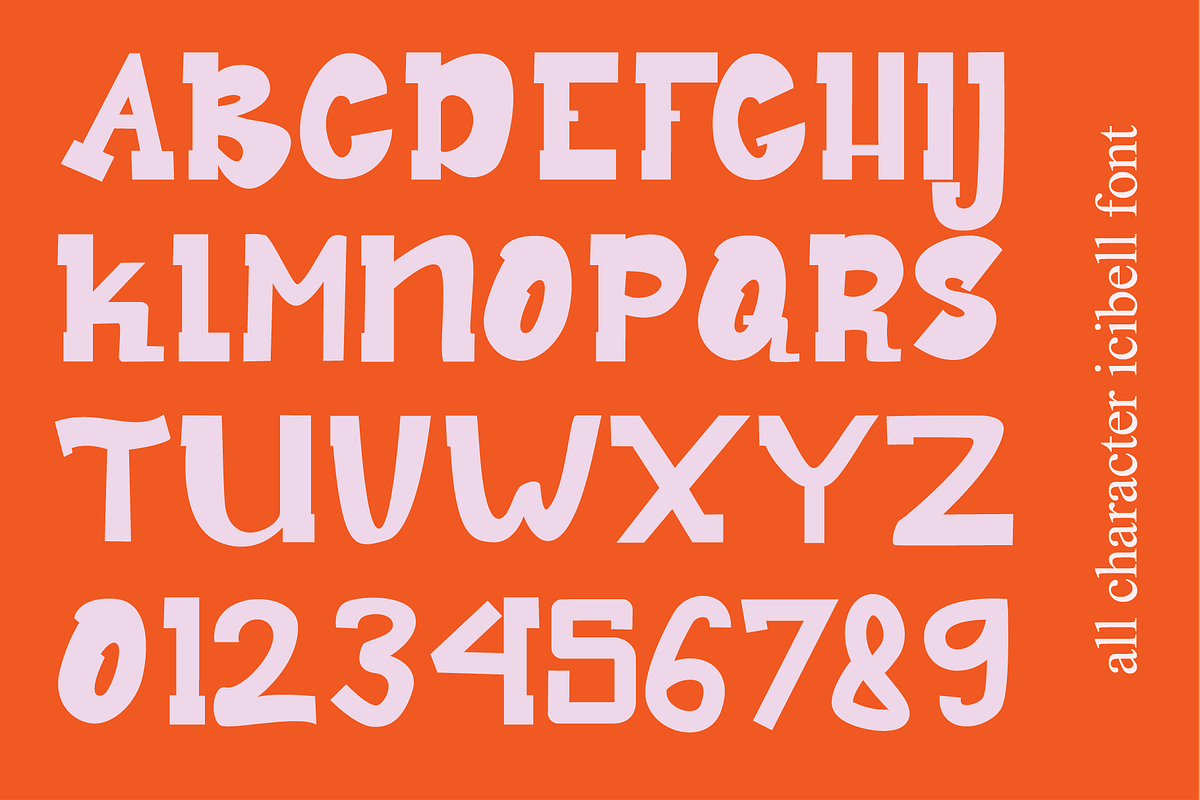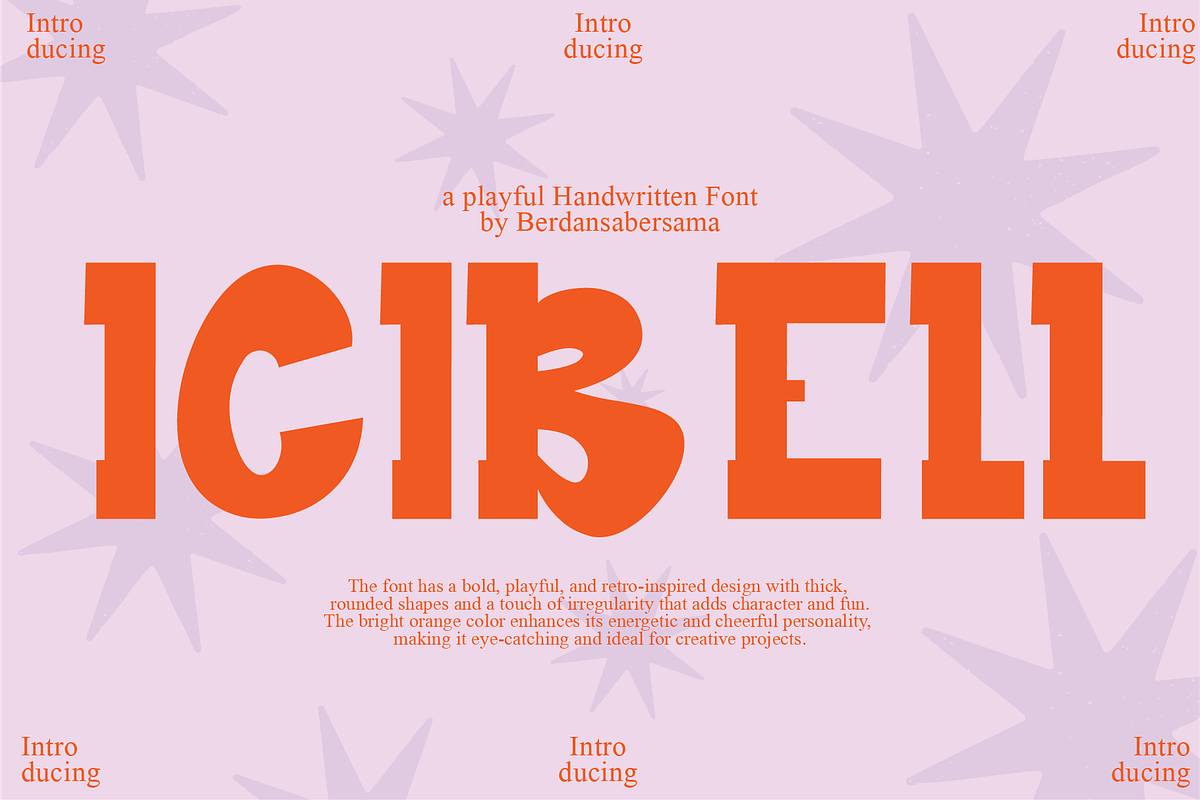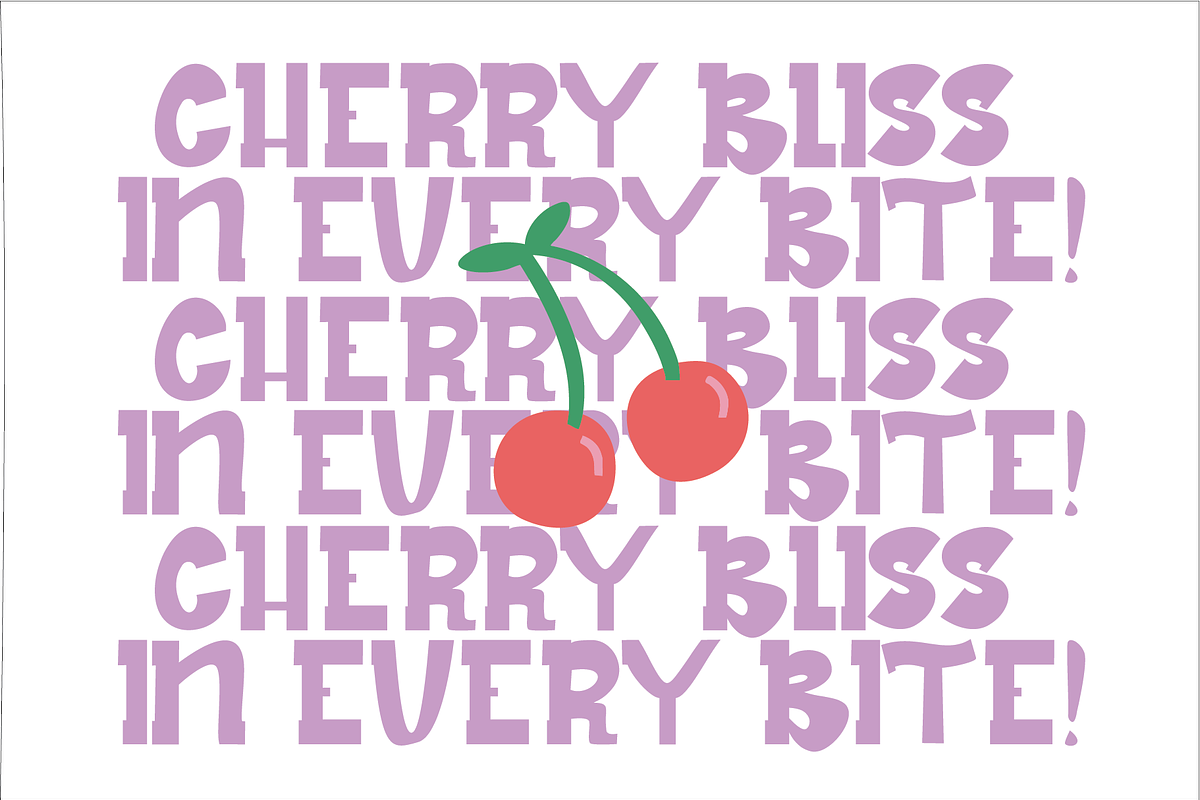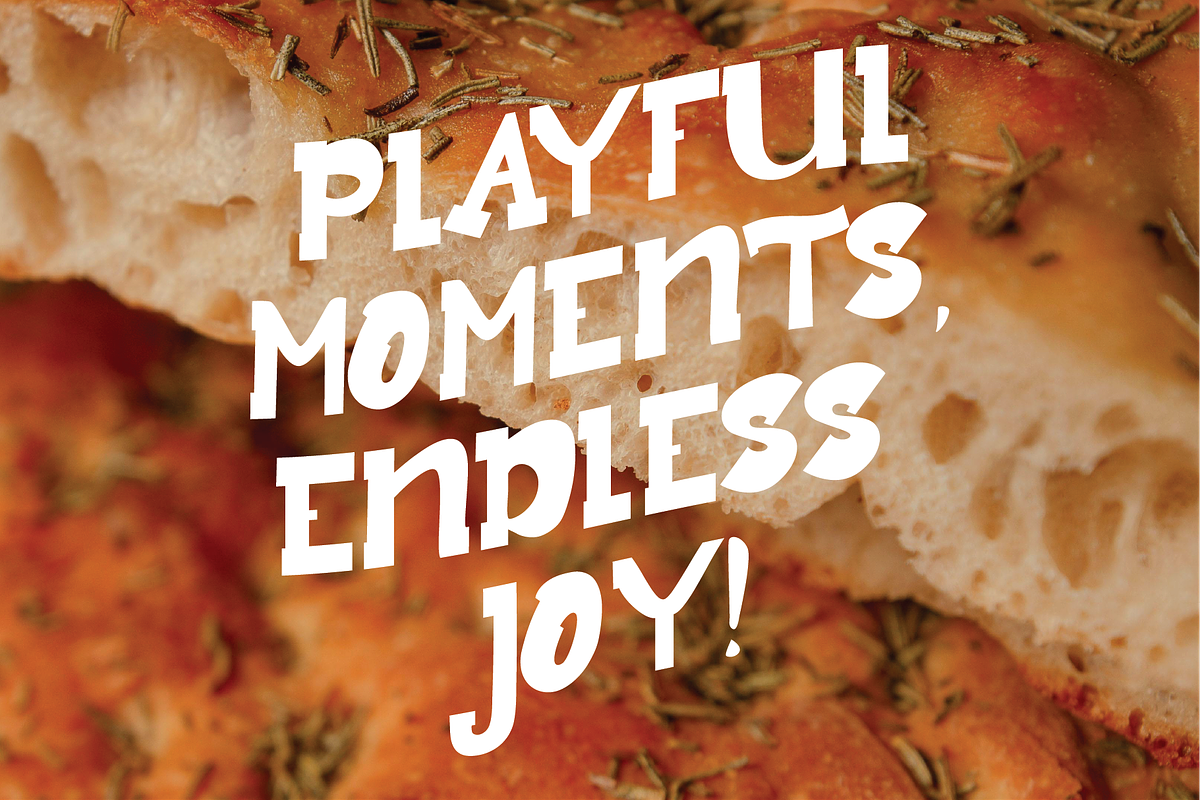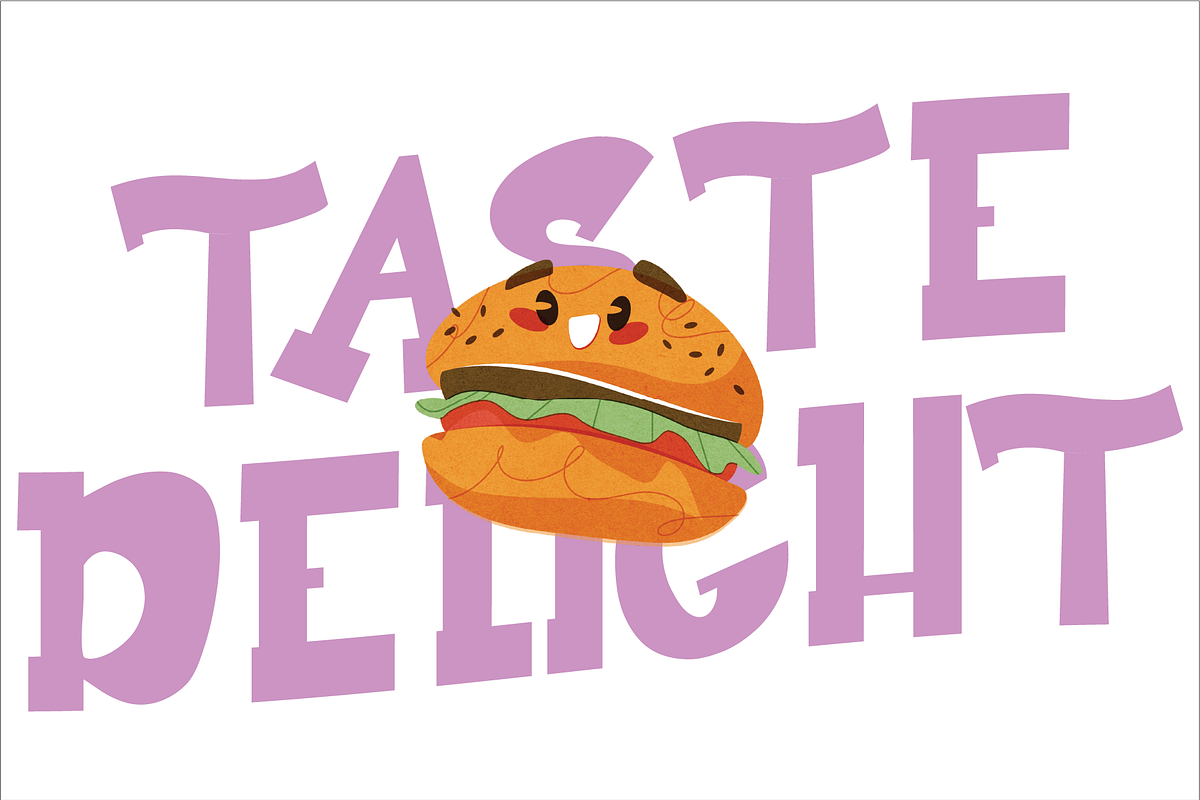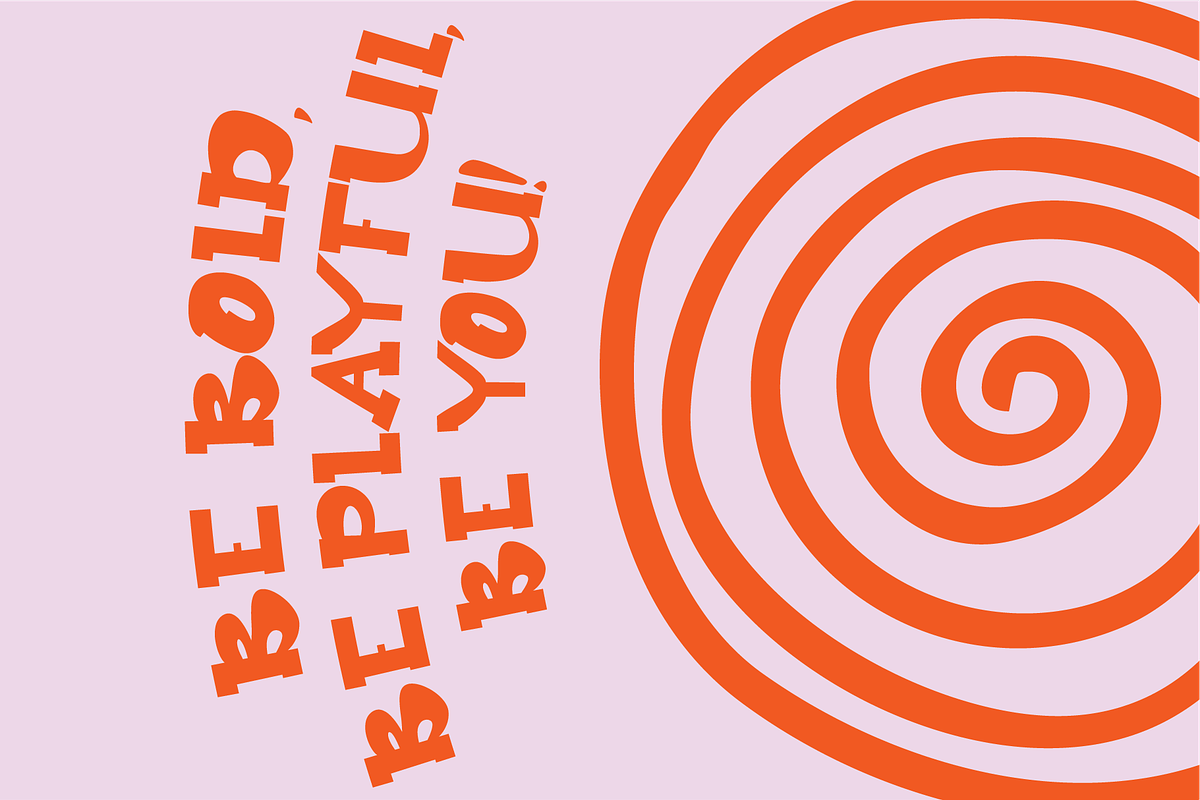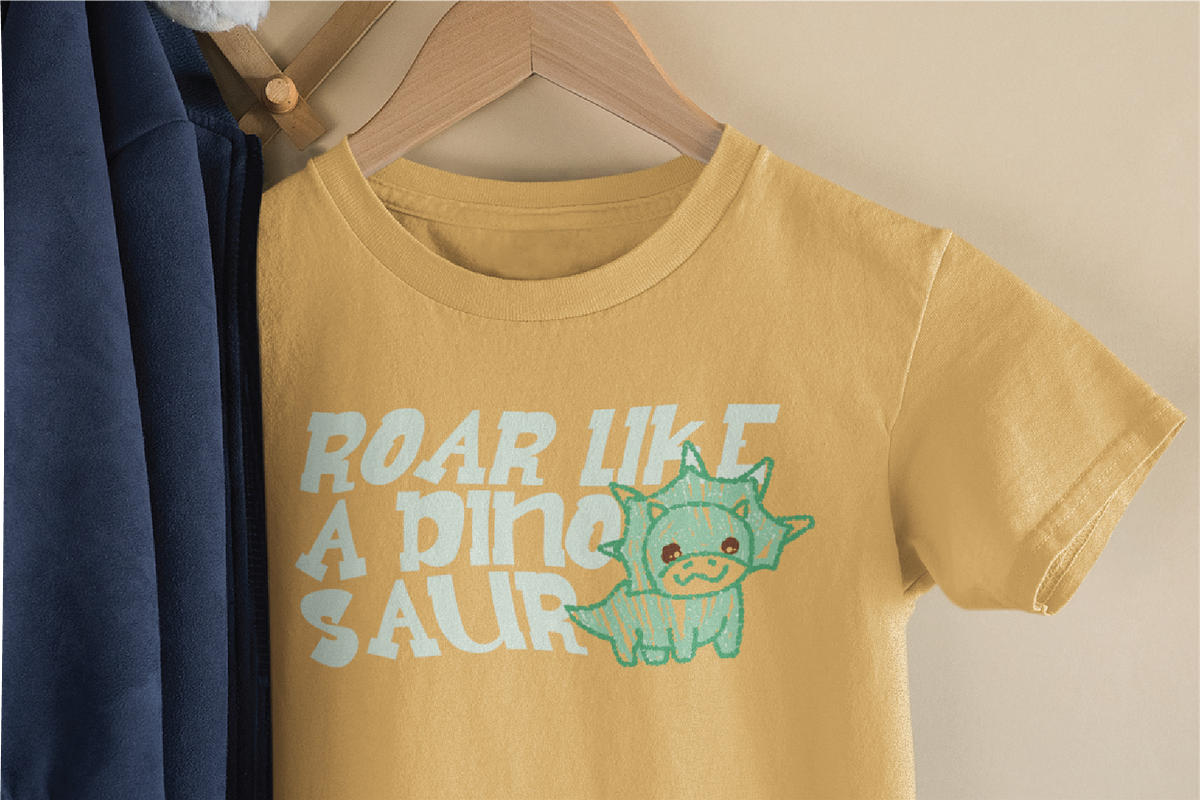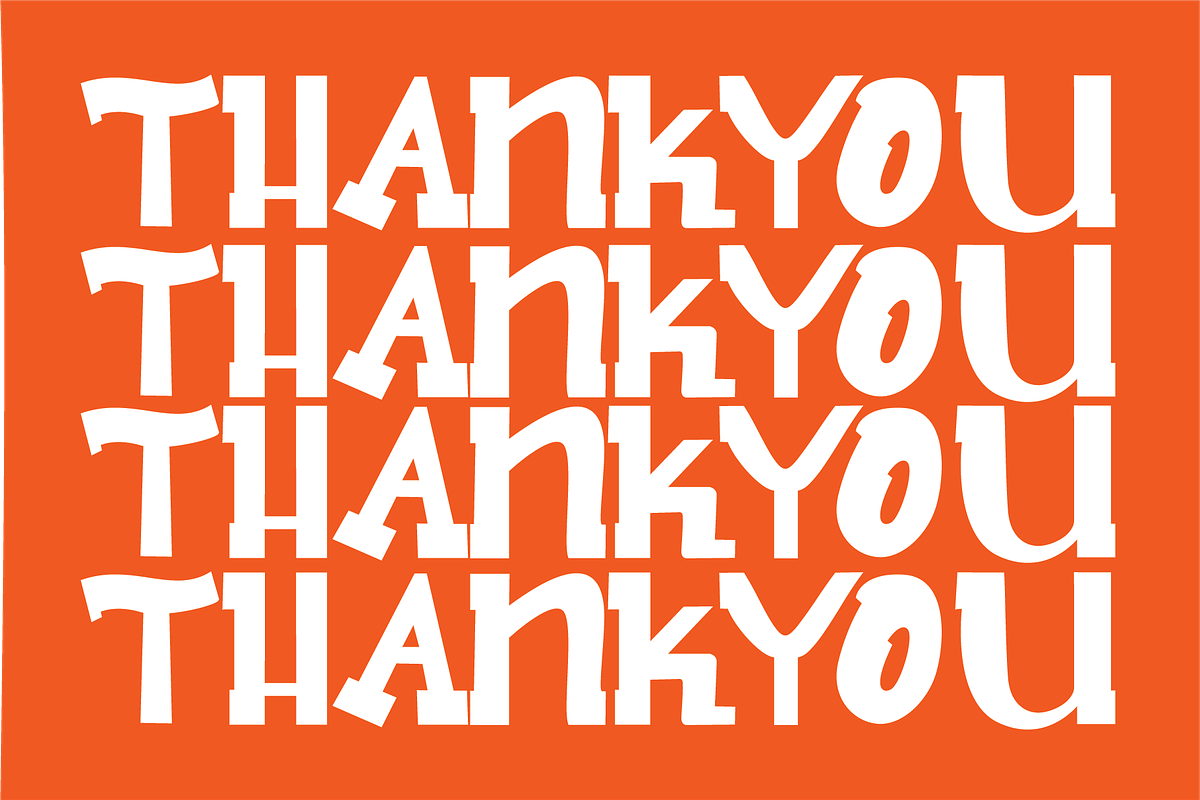
Icibell - Playful Handwritten Font
Icibell is bold and playful, with chunky, rounded edges that evoke a sense of fun and friendliness. Its strong and vibrant presence makes it ideal for youthful, energetic branding, perfect for products, posters, or any creative project that seeks to capture attention with a modern, quirky feel.